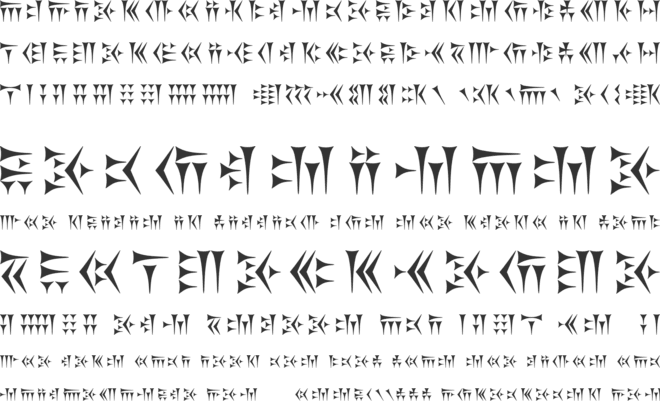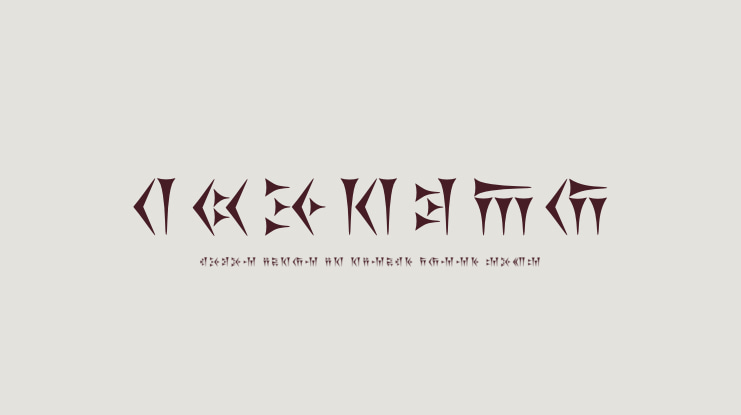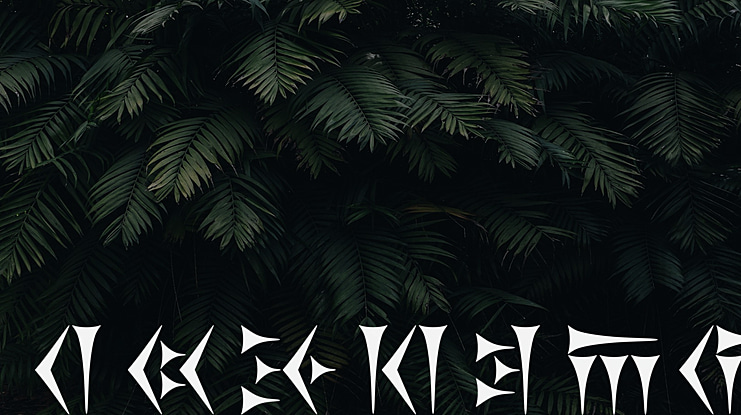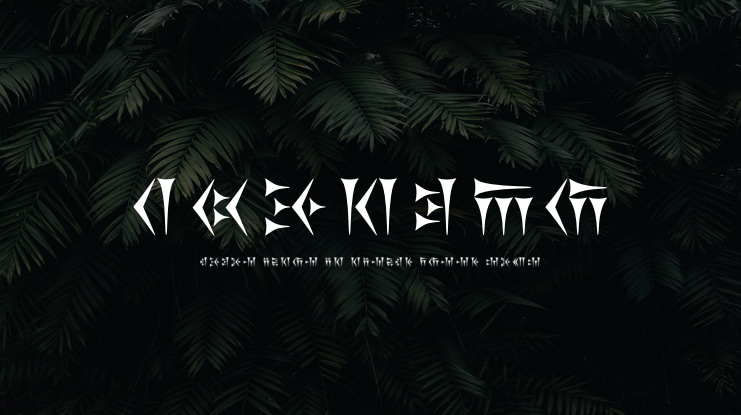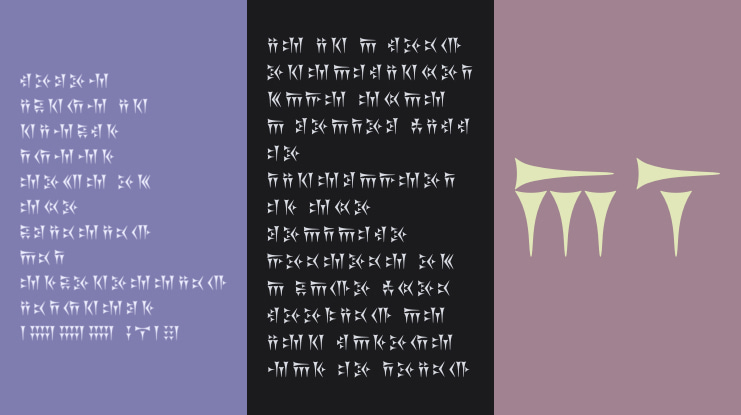
Khosrau Font
Fereydoun Rostam
Developed with the help of Mr. Keyvan Mahmmoudi, from the University of Teheran, the glyphs are allocated over very convenient keys, but also works for Unicode. This font includes every known glyph for this ancient inscript. This is a free non-commercial font and should not be selled by any means. For more details on how to use the font, permissions or sugestions, contact me: